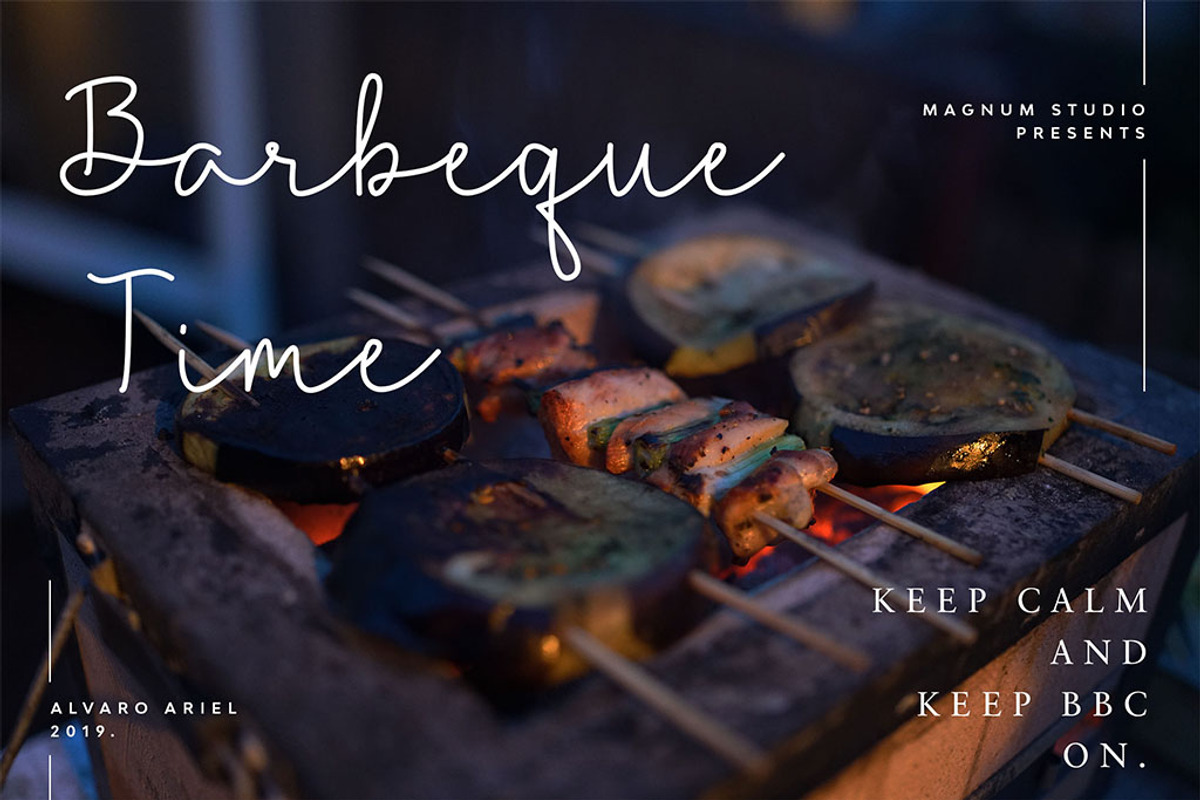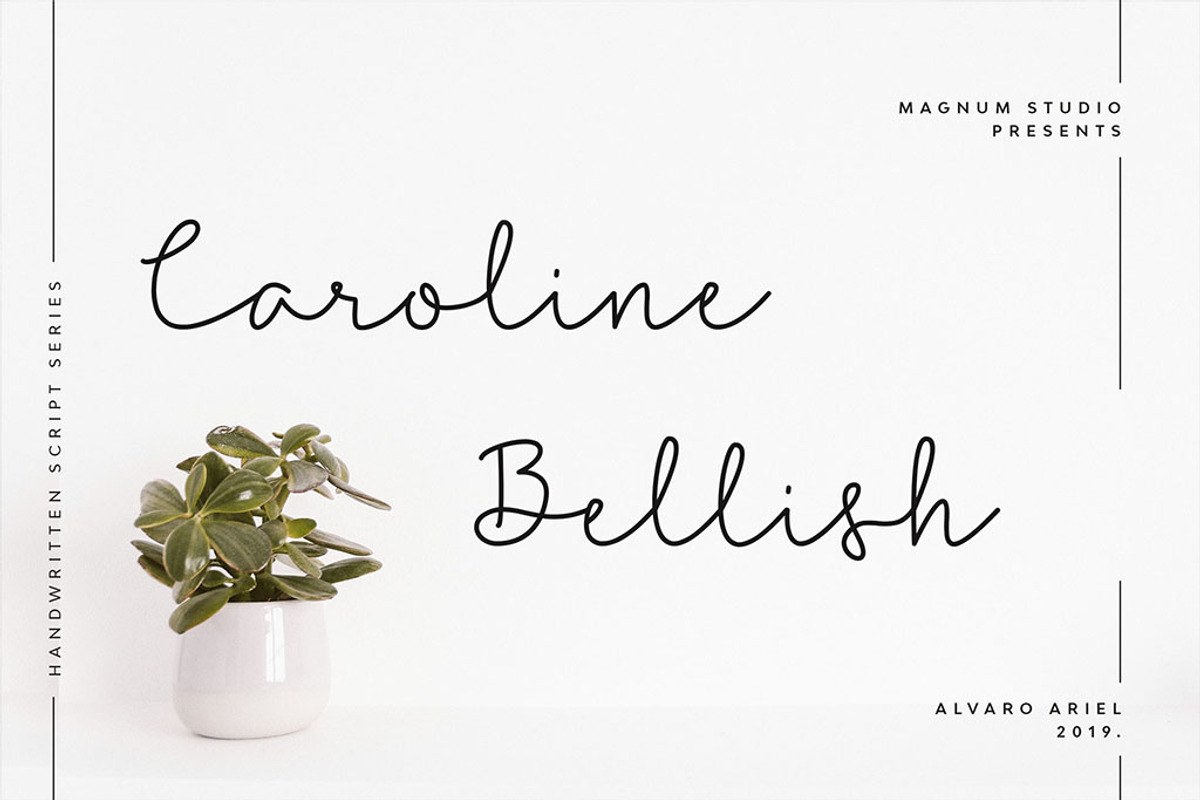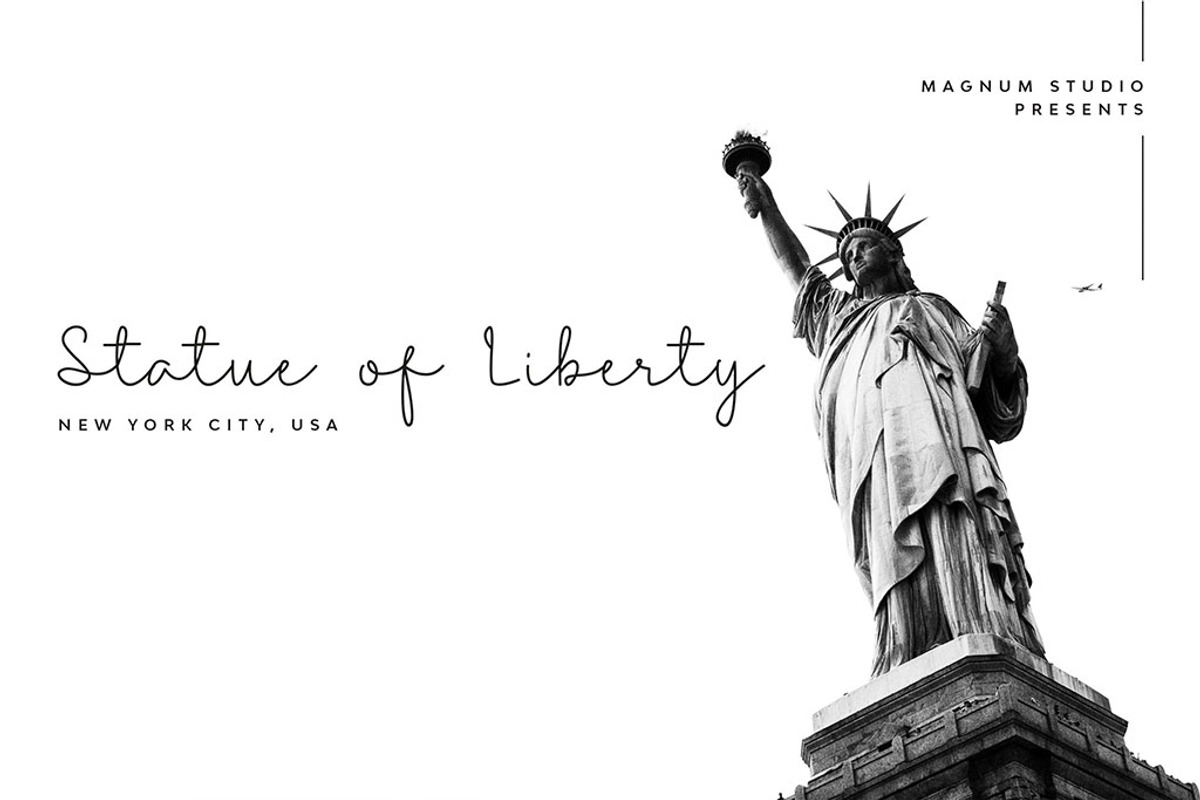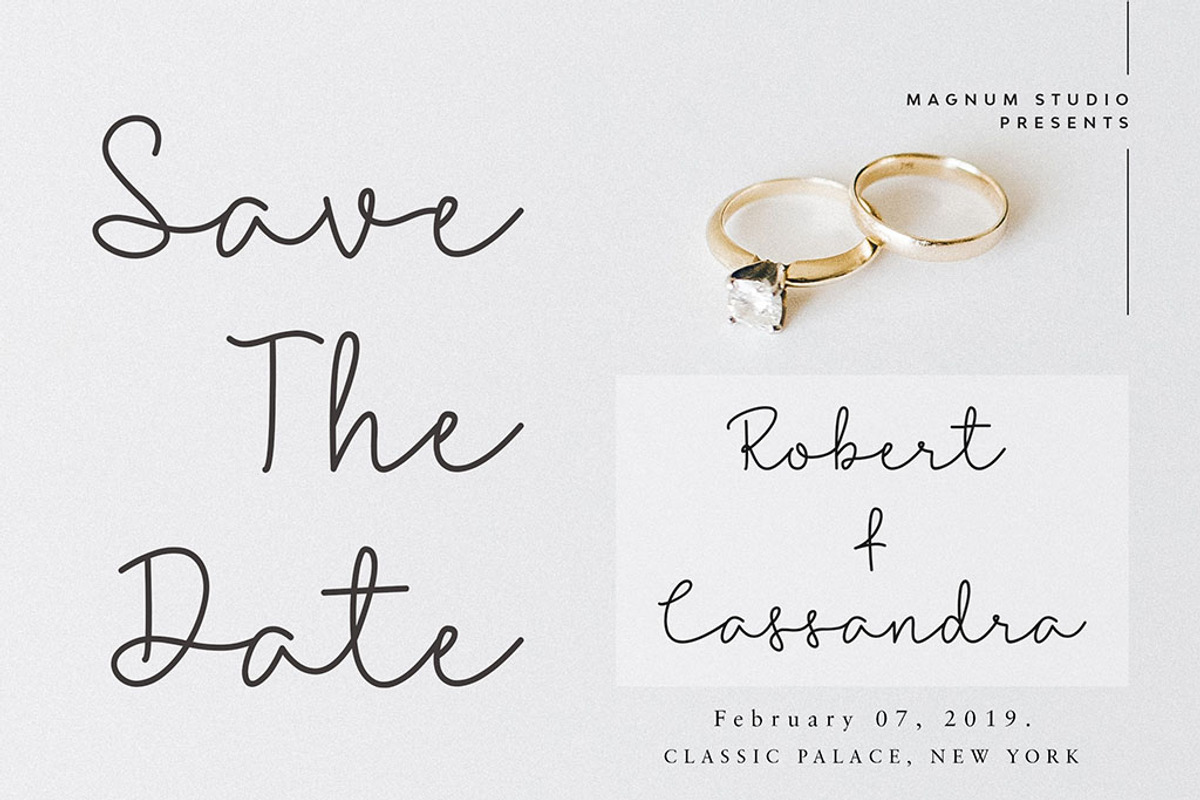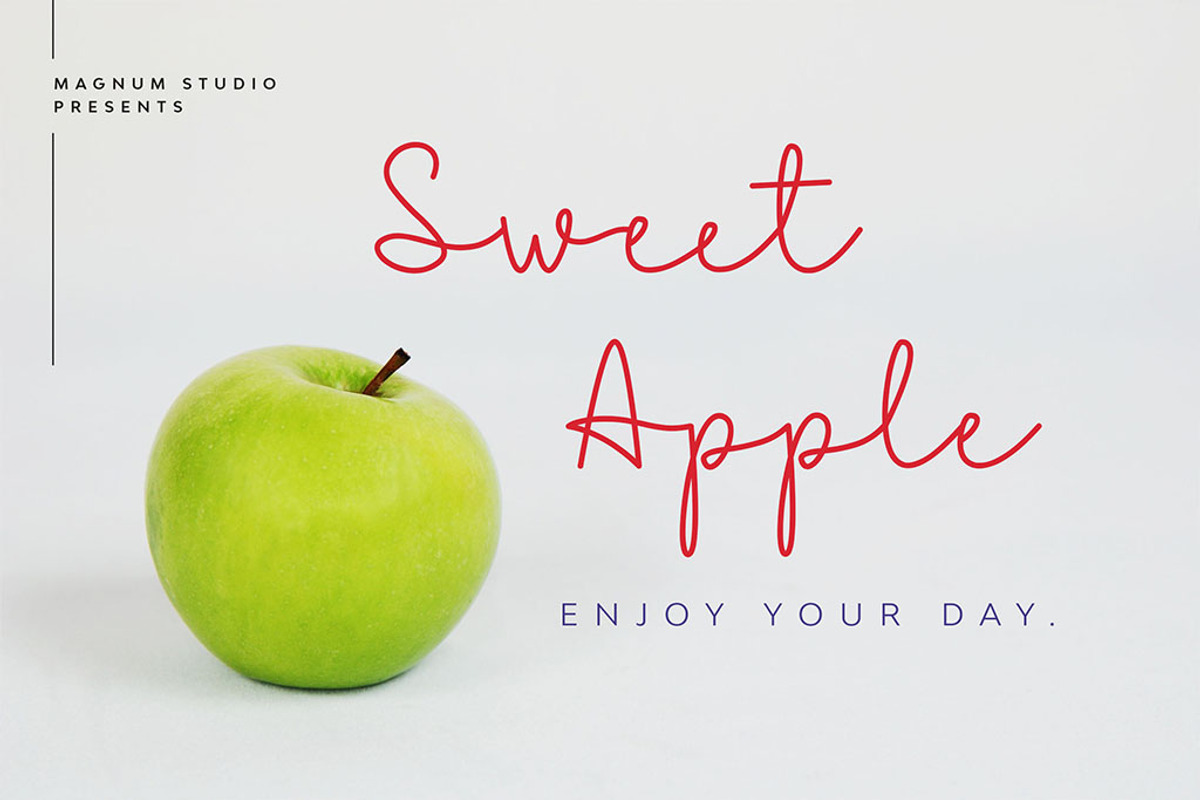
Caroline Bellish Script Font
Caroline Bellish - New Modern & Fresh Script Font with a handwritten and script style make this font looks beautiful, elegant, and natural. This font contains uppercase, lowercase, numbers, symbols, including multilingual support and ligature.
Caroline Bellish perfect for invitation, logos, product designs, label, photography, watermark, branding projects, social media posts, wedding designs, and any awesome design that require a handwritten style font. So you are guaranteed to find just the right feel for your project.
- Multilingual Support: Afrikaans, Danish, Dutch, French, German, Indonesian, Irish, Italian, Norwegian, Portuguese, Romansh, Scottish, Spanish, and Swedish.